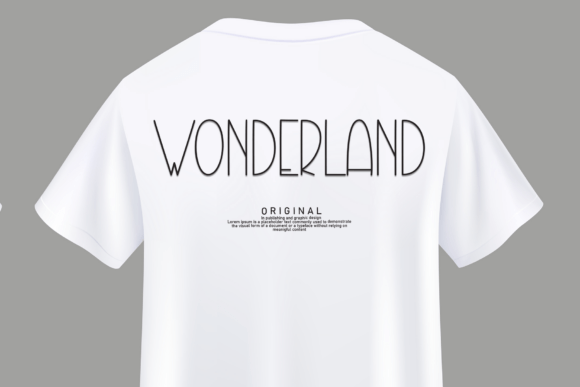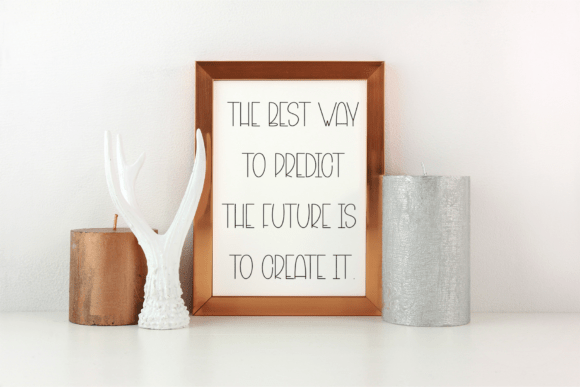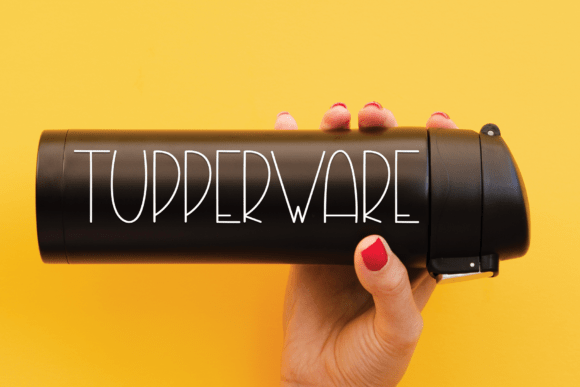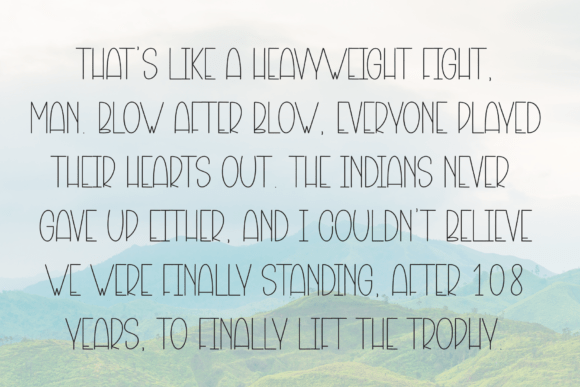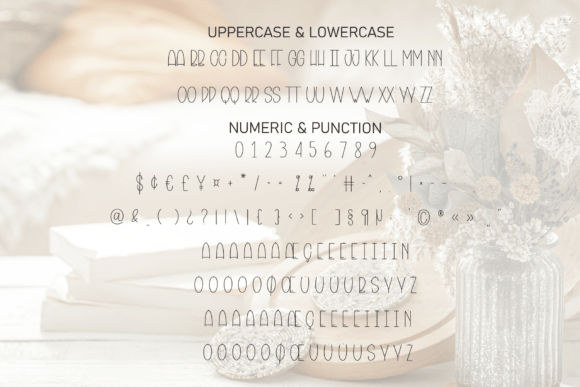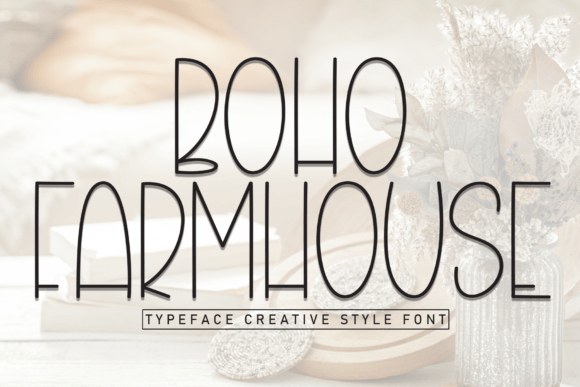
Introducing Boho Farmhouse Font: A Charming Handwritten Display Font
Are you looking for a font that adds a touch of kindness, whimsy, and playfulness to your designs? Look no further than the Boho Farmhouse Font, a beautiful handwritten display font that is perfect for creating delightful and eye-catching designs. With its lively and entertaining flair, this font is ideal for wedding invitations, greeting cards, and any design project that requires a dash of joy and light-hearted spirit.
A Font that Brings Design to Life
The Boho Farmhouse Font is a handwritten treasure that truly brings design to life with a personal touch. Its charming and intimate feel makes every creation more meaningful and enjoyable. Whether you’re a designer, crafter, or DIY enthusiast, this font is sure to inspire you to create something special. With its unique and quirky style, the Boho Farmhouse Font adds a touch of personality to any design project, making it stand out from the crowd.
Wedding invitations and greeting cards are special occasions that deserve a font that is both elegant and playful. The Boho Farmhouse Font is perfect for these types of designs, as it adds a touch of whimsy and romance to any invitation or card. Its lively and entertaining flair makes it ideal for creating designs that are both joyful and heartfelt. Whether you’re designing a wedding invitation or a birthday card, this font is sure to make your creation special.
Adding a Dash of Joy and Light-Hearted Spirit
The Boho Farmhouse Font is all about adding a dash of joy and light-hearted spirit to your designs. Its playful and quirky style makes it perfect for creating designs that are fun and entertaining. Whether you’re designing a children’s book, a party invitation, or a social media graphic, this font is sure to bring a smile to people’s faces. With its charming and intimate feel, the Boho Farmhouse Font is the perfect choice for any design project that requires a touch of personality and whimsy.
Features of the Boho Farmhouse Font
- Handwritten display font: The Boho Farmhouse Font is a beautiful handwritten display font that adds a personal touch to any design project.
- Charming and intimate feel: This font has a charming and intimate feel that makes every creation more meaningful and enjoyable.
- Lively and entertaining flair: The Boho Farmhouse Font has a lively and entertaining flair that makes it perfect for creating designs that are fun and engaging.
- Perfect for wedding invitations and greeting cards: This font is ideal for wedding invitations and greeting cards, as it adds a touch of whimsy and romance to any design.
Why Choose the Boho Farmhouse Font?
There are many fonts available online, but the Boho Farmhouse Font stands out from the rest. Here are just a few reasons why you should choose this font for your next design project:
- Unique and quirky style: The Boho Farmhouse Font has a unique and quirky style that adds a touch of personality to any design project.
- High-quality design: This font is designed with high-quality craftsmanship, ensuring that it looks great in any design.
- Easy to read: The Boho Farmhouse Font is easy to read, making it perfect for designs that require a lot of text.
- Versatile: This font is versatile and can be used for a wide range of design projects, from wedding invitations to social media graphics.
In conclusion, the Boho Farmhouse Font is a charming and intimate handwritten display font that is perfect for adding a touch of kindness, whimsy, and playfulness to your designs. With its lively and entertaining flair, this font is ideal for wedding invitations, greeting cards, and any design project that requires a dash of joy and light-hearted spirit. Whether you’re a designer, crafter, or DIY enthusiast, this font is sure to inspire you to create something special. So why wait? Download the Boho Farmhouse Font today and start creating designs that are both beautiful and meaningful.